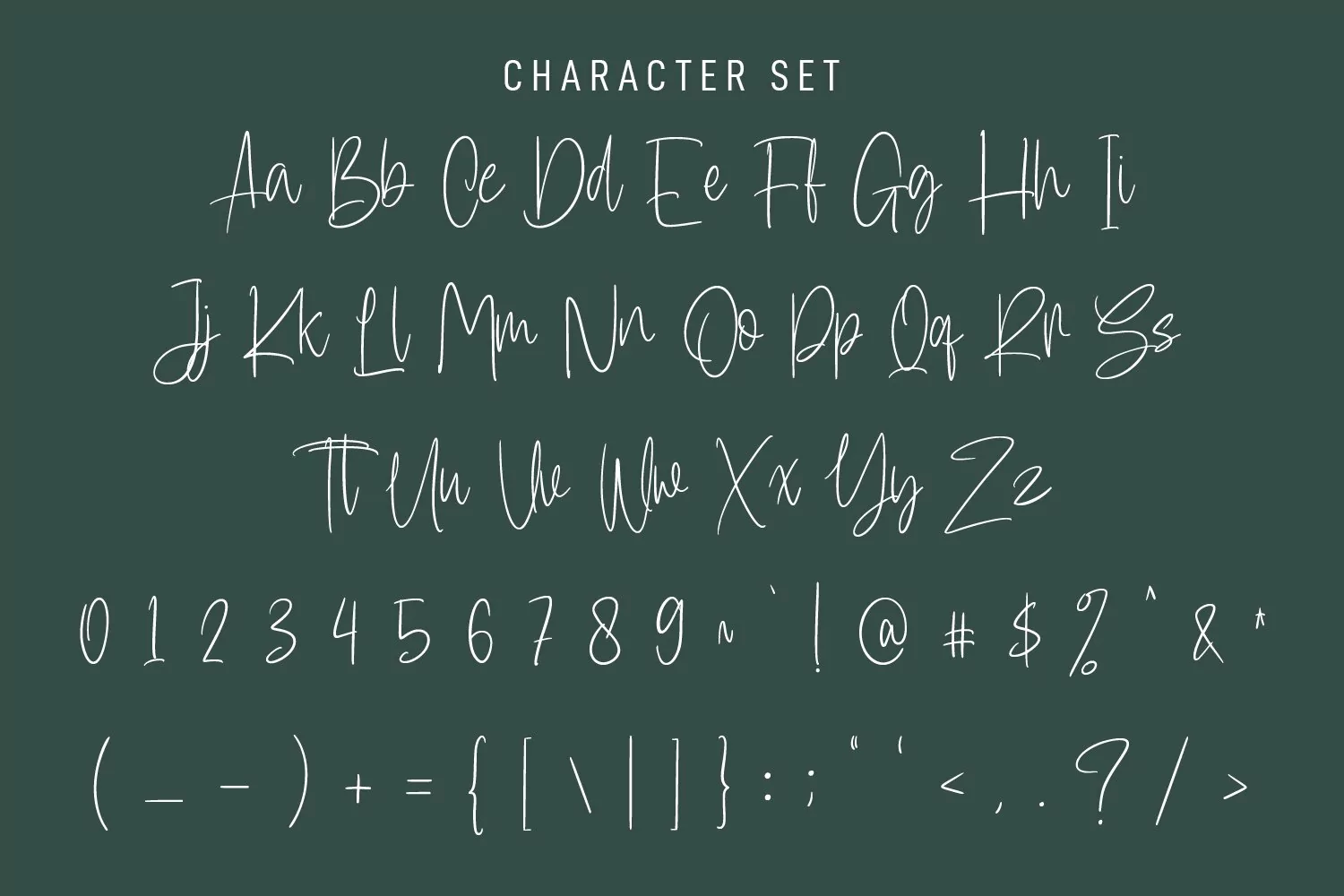
Wishstock is a fancy handwritten script font. With light contrast narrow stroke, fun character with a bit of ligatures and alternates. To give you an extra creative work. Wishstock font support multilingual more than 100+ language. This font is good for logo design, Social media, Movie Titles, Books Titles, a short text even a long text letter and good for your secondary text font with sans or serif. Make a stunning work with Wishstock font.